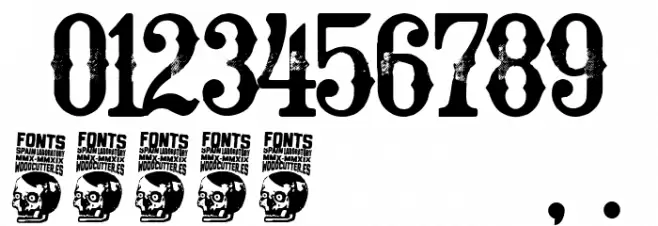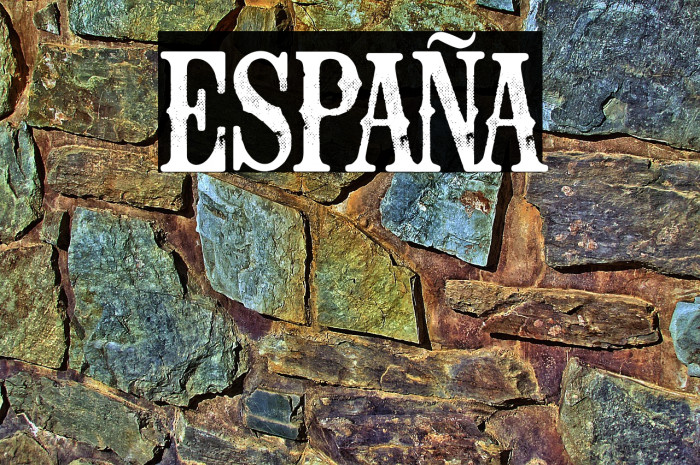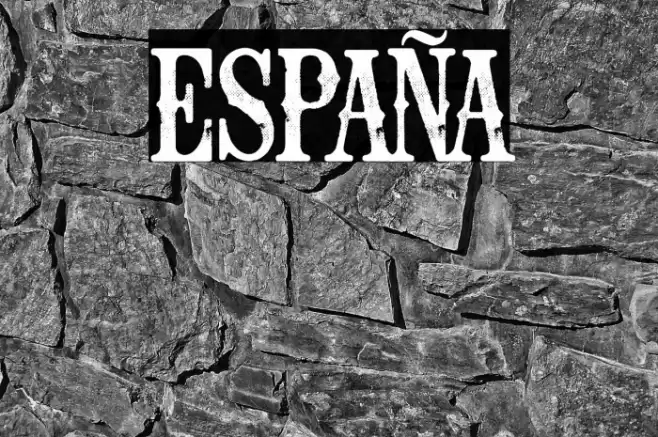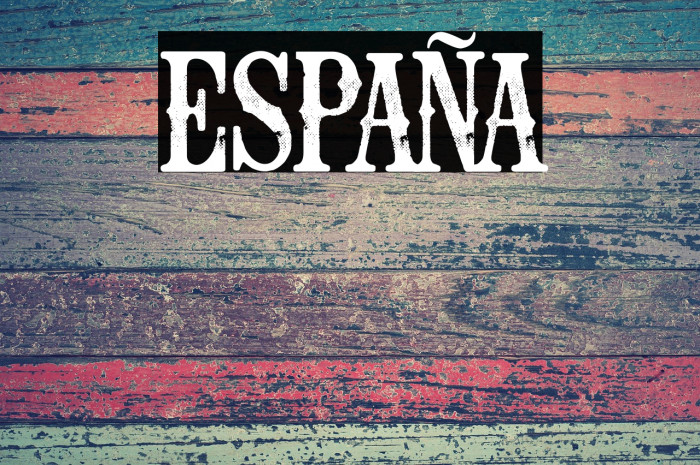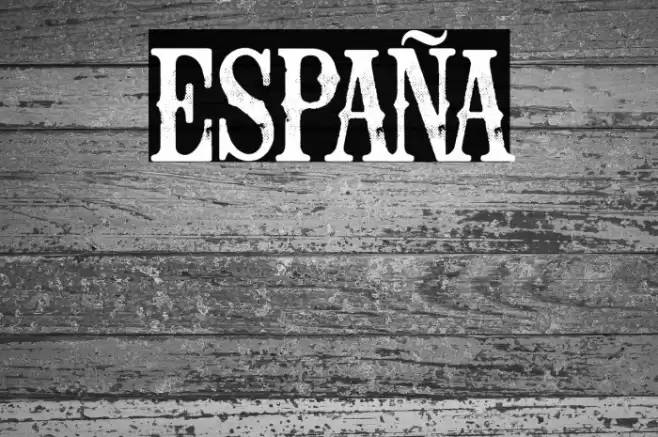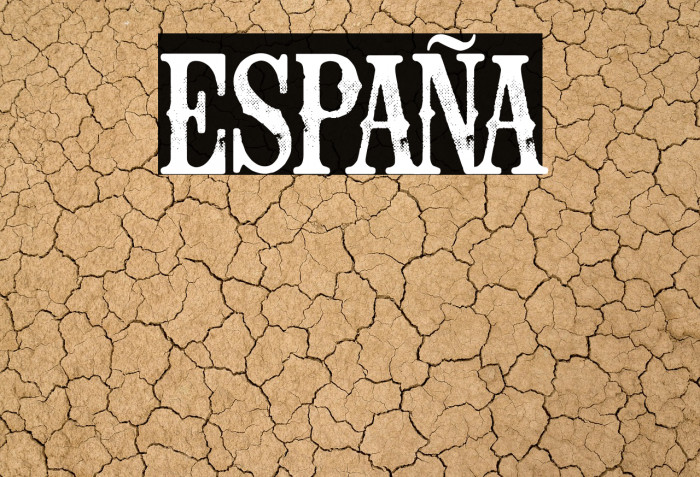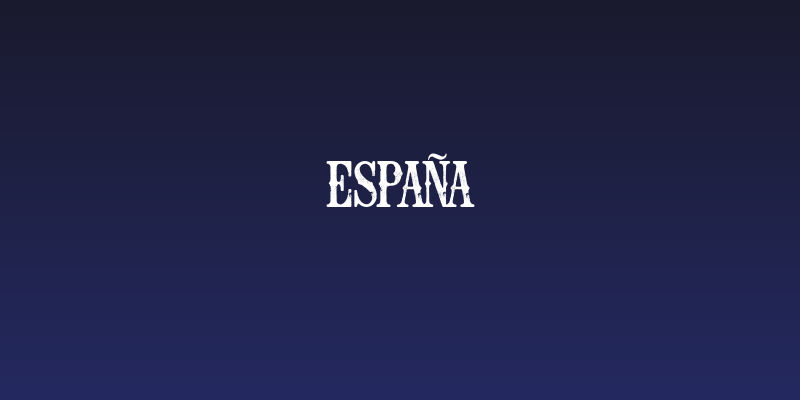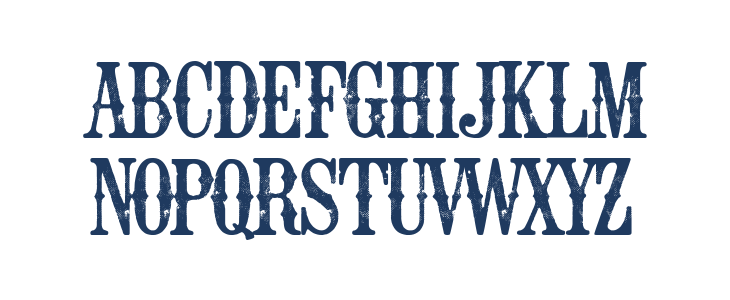
España Font
España Description
This font features a bold, distressed style with a vintage flair, characterized by its rough, textured appearance. The uppercase letters are prominently displayed with a strong presence, while the numbers and special characters maintain the same rugged aesthetic. The font's design is reminiscent of old western or vintage signage, making it ideal for projects that require a touch of nostalgia or a gritty, worn look. The characters are well-defined, yet the distressed effect adds an element of unpredictability and charm. This font is perfect for creating eye-catching headlines, posters, or branding materials that need to convey a sense of history or ruggedness.
| Proposed Projects | Ideal for vintage-themed posters, branding, logos, and signage that require a distressed, nostalgic look. |